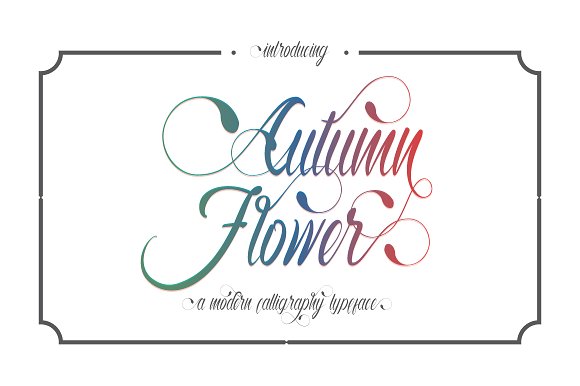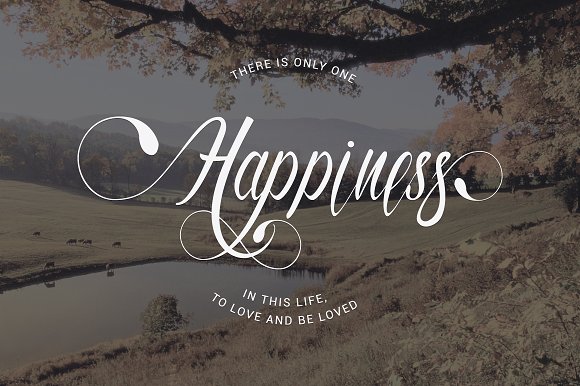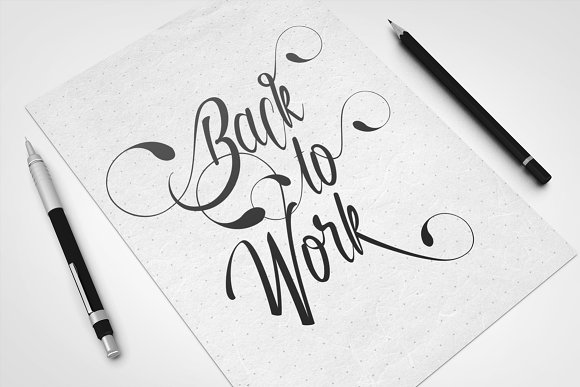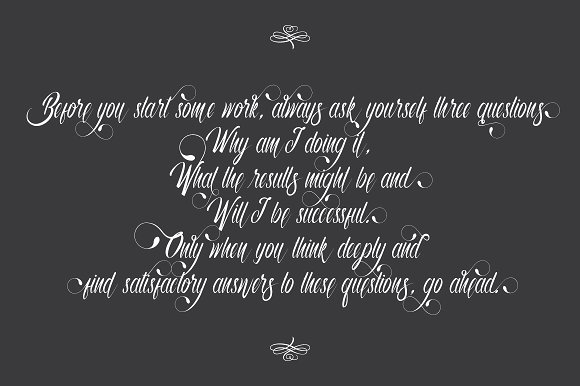
HomeScript FontsAutumn Flower Font Script Fonts Autumn Flower Font FacebookXPinterestWhatsApp Autumn Flower Font Poster 2 Autumn Flower Font Poster 3 Autumn Flower Font Poster 4 About Autumn Flower Font Autumn Flowers is a stunning elegant handwritten font created by Thirtypath. DOWNLOAD ON CREATIVE FABRICAThis font is sold and delivered by Creative Fabrica. Font Canyon may earn a commission if you buy through this link. People also explored The Angedemon Font Daisha Hailey Font Just Smile Marshmelow Font Play Tricks Font Nottokio Font Benson Script Adventure Blues Font Bargain Font 385 0 TagsAutumn Flower Font Previous articleBillaneiva FontNext articleAdilla and Rita Font LEAVE A REPLY Cancel reply Comment: Please enter your comment! Name:* Please enter your name here Email:* You have entered an incorrect email address! Please enter your email address here Website: Save my name, email, and website in this browser for the next time I comment. Personal Use Free Metal Lord Personal Use Free Read more about this font Rothwell Personal Use Free Read more about this font Built Tilting Personal Use Free Read more about this font Potato Pancakes Personal Use Free Read more about this font BLOG Top 10 Handwritten Fonts That Elevate Your Designs Top 10 Handwritten Fonts That Will Elevate Your Designs Handwritten fonts bring a warm, personal touch to every creative project. Whether you're designing logos, invitations,... Exploring Font Trends Elegant Wedding Invitation Fonts – Handwritten & Script Fonts To increase your work productivity, choose the most readable fonts.